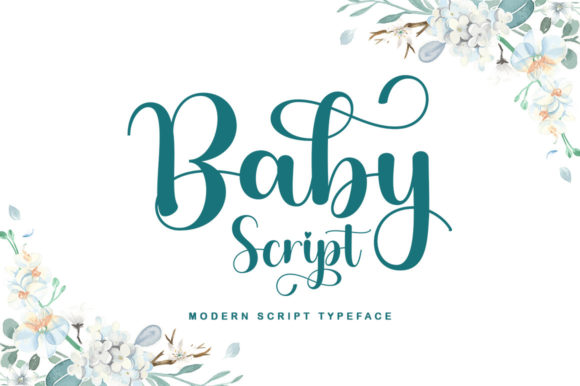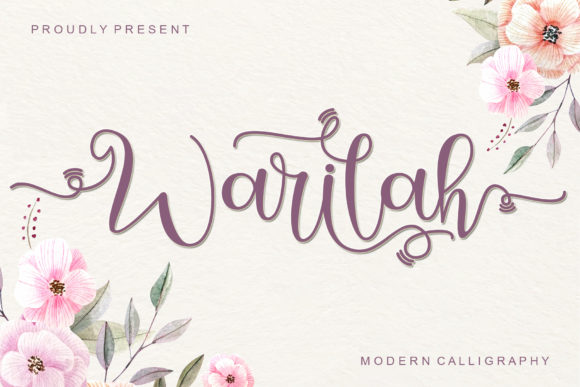
15 New FREE Calligraphy Fonts – Part 7
In today’s collection I’ve hand picked 15 of the best free calligraphy fonts that will give an alluring look to your crafts. All of these bright calligraphy fonts are crafted by professional designers. You can use them to design greeting cards, invitations, posters, packaging, labels, t-shirts, and more.
Picking the accurate and the perfect fonts for your design projects is a crucial step, the pairing font selection will elevate and beautify your designs. Therefore, I carefully selected 15 of the best free calligraphy fonts that will charm you and will add richness to your designs.
Here are the 15 new FREE calligraphy fonts:
1. Calliesha Script Font
Calliesha is a classy and professional script font that embodies elegance and charm in every character. It was created to look as close to natural handwriting as possible, so it adds a personal look and feel to your designs!
2. Misha Salma Script Font
Misha Salma is a refined and dainty handwritten font. Dainty and joyful, this font will be ideal for writing wedding invitations, cards or any other design that may need a romantic, personalized touch!
3. Magical Mystery Script Font
Magical Mystery is a magical handwritten font carefully created with a touch of elegance. Whether you’re looking for fonts for Instagram or calligraphy scripts for DIY projects, this font will turn any creative idea into a true piece of art!
4. Candy Butterfly Script Font
Candy Butterfly is a lovely and delicate script font that exudes elegance and class. This font was particularly crafted for those who need a beautiful and refreshing look to their designs.
5. Aloha Script Font
Aloha is a lovely and timeless handwritten font. It is the best choice for creating eye catching logos, branding and quotes. Every letter has a unique and beautiful touch, which will make your design come alive!
6. Southmore Script Font
Southmore is a sweet and cursive handwritten font. This gentle font will look gorgeous on a variety of design ideas. It will add a joyful and romantic touch to each of your projects!
7. Ameliora Script Font
Ameliora is a sweet and subtle handwritten font that is crafted with great care for maximum results. It will add elegance and class to any of your design projects.
8. Celebrate Script Font
Celebrate is an elegant handwritten font. Get inspired by its flowing style and create cute designs.
9. Lovely Dream Script Font
Lovely Dream is a beautiful and romantic handwritten font. It features a varying baseline, smooth lines, gorgeous glyphs and stunning alternates. Fall in love with its incredibly versatile style and use it to create spectacular designs!
Lovely Dream is a beautiful and romantic handwritten font. It is PUA encoded, which means that you can access all of the glyphs and swashes with ease! It features a varying baseline, smooth lines, gorgeous glyphs and stunning alternates. Fall in love with its incredibly versatile style and use it to create spectacular designs!
10. Baby Script Font
Baby is an ravishing handwritten font. This versatile script font has a wide spectrum of applications ranging from greeting cards to headlines and is guaranteed to add a romantic feel to your next project.
Pay a fixed price per month, not per asset
Download what you want, as often as you want. #AtAnyTime
Unlock instant access to 1 million+ creative assets, including all assests from this post for only $29/mo
What’s included in the All Access Plan?
✔️ 77,709 cut files
✔️ 87,787 Fonts
✔️ 4,376,859 Graphic assets
✔️ 28,261 embroidery designs
✔️ New assets added daily
✔️ Commercial license
11. Warilah Script Font
Warilah is a magical and sweet calligraphy typeface with characters that dance along the baseline. It has a casual, yet elegant touch.
12. Authentic Sheldon Script Font
Authentic Sheldon is beautiful and lovely script font with many alternative styles, ligatures, swash and multilingual glyphs. Authentic Sheldon can be used for wide ranges of applications, such as wedding designs, logos, posters, name cards, invitations, social media posts, and others.
Authentic Sheldon is beautiful and lovely script font with many alternative styles, ligatures, swash and multilingual glyphs.
Authentic Sheldon can be used for wide ranges of applications, such as wedding designs, logos, posters, name cards, invitations, social media posts, and others.
13. Dearlove Script Font
Dearlove is an elegant script font with a contemporary atmosphere and impeccable form, inspired by timeless classic calligraphy. Not too thin and not too thick, balanced and varied, this font was designed to enhance the beauty of your projects.
14. Cherilyn Script Font
Cherilyn is a beautiful light handwritten font with a unique feel and a stunning impact. It will add a luxury spark to any design project that you wish to create!
15. Hey Babe Script Font
Hey Babe is a spectacular duo font (sans serif and script). Incredibly versatile, this font fits a wide pool of designs, elevating them to the highest levels. This product is included in a Creative Fabrica Class: Creating a Bee Wood Burned Project. Be sure to check it out!
Hey Babe is a spectacular duo font (sans serif and script). Incredibly versatile, this font fits a wide pool of designs, elevating them to the highest levels.
This product is included in a Creative Fabrica Class: Creating a Bee Wood Burned Project. Be sure to check it out!
With thousands of free calligraphy fonts available today, picking the perfect calligraphy fonts for your projects can be an exhausting task. To help you out in the process of choosing excellent calligraphy fonts, I compiled this list of the best calligraphy fonts that assures a promising outcome.
I hope you will find this post useful if you’re in the search for the best calligraphy fonts that will easily integrate into your designs, either a personal project or commercial sale.